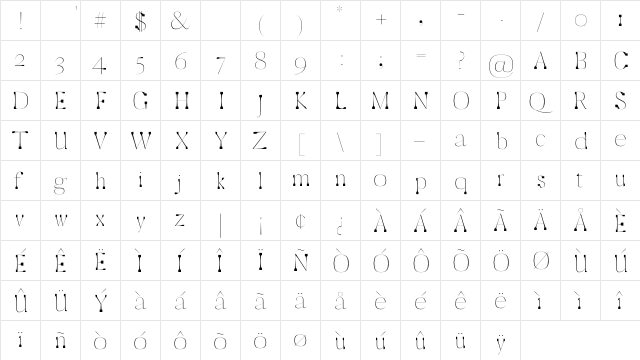
Zack Thin
Design Context for Zack Thin Typeface
Zack Thin offers clean, dependable letterforms without strong stylistic allegiance, making it a practical choice for designers who need flexibility. The delicate stroke weight brings airiness and refinement to layouts.